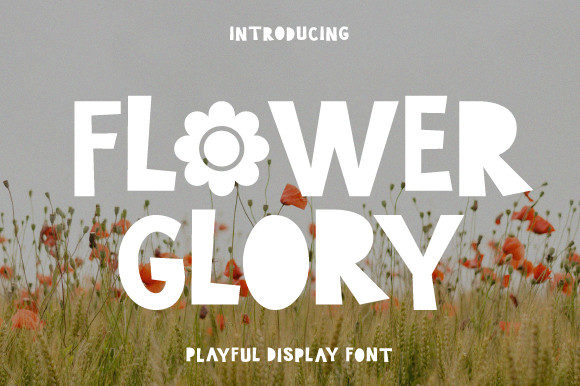
Journey into the Realm of Flower Glory: A Font Symphony for Joyful Hearts
In the realm of digital aesthetics, fonts hold the power to transform words into enchanting melodies, capable of striking a chord with audiences and leaving an indelible mark on their hearts. And among the symphony of fonts, Flower Glory emerges as a radiant star, a true masterpiece designed to infuse your designs with joy and captivation.
Crafted by the skilled artisans at Prioritype, Flower Glory is not merely a font; it's an experience, an invitation to embark on a visual odyssey where creativity knows no bounds. This display font bursts onto the scene with an explosion of cheerfulness, ready to elevate your design projects to new heights.
Picture this: a birthday card adorned with Flower Glory's whimsical charm, carrying heartfelt messages that dance across the page like confetti. The font's playful curves and vibrant energy create an atmosphere of pure delight, transforming a simple greeting into an unforgettable keepsake.
Or envision a poster announcing a summer festival, its title emblazoned in Flower Glory's exuberant style. The font's cheerful strokes invite passersby to immerse themselves in a world of fun and excitement, promising an unforgettable experience.
From merchandise that radiates positivity to social media posts that sparkle with personality, Flower Glory adapts seamlessly to a myriad of creative endeavors. Whether you're a seasoned designer or a creative enthusiast, this font is your passport to a world where imagination reigns supreme.
So let Flower Glory ignite the spark of creativity within you, inspiring you to weave tales of joy and wonder through your digital creations. Embrace the magic of this font, and watch as your designs blossom into captivating masterpieces that touch the hearts of all who behold them.